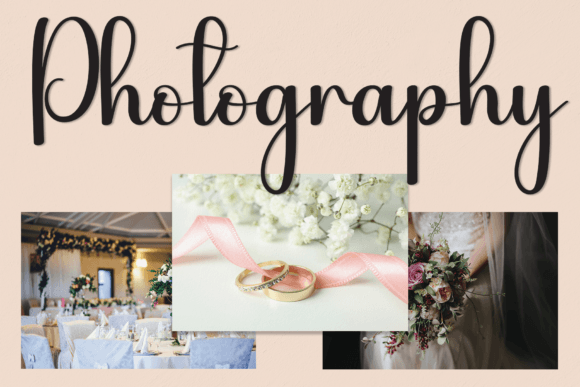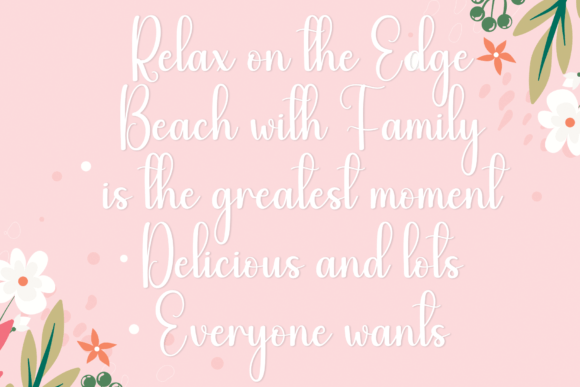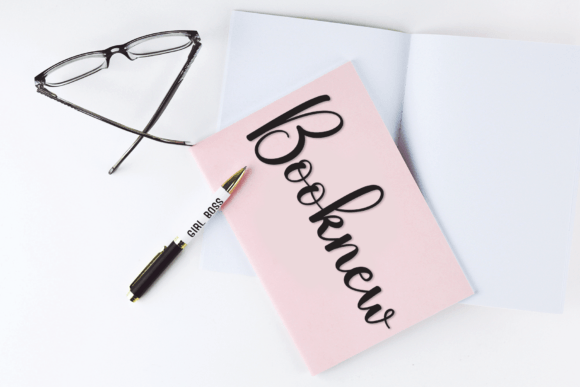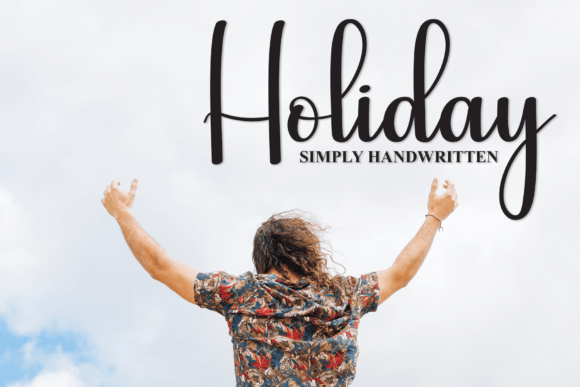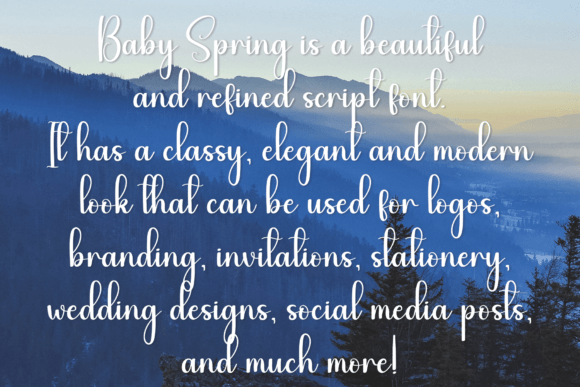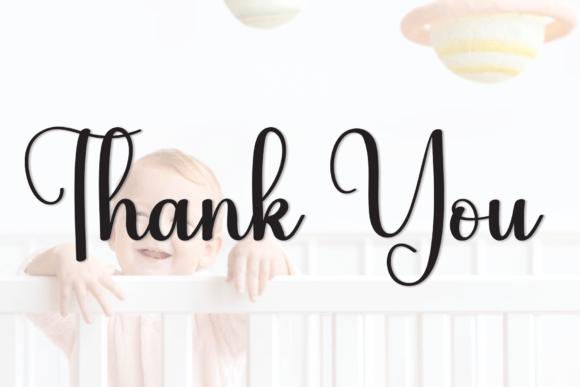
The Sweet Charm of Baby Spring Font: A Designer’s Delight
I’ll never forget the time I was working on a project for a client who wanted a custom wedding invitation design. I had the perfect concept in mind, but I was struggling to find the right font to bring it all together. That’s when I stumbled upon Baby Spring Font, and it was love at first sight! 💕 This sweet and cursive handwritten font has since become a staple in my design toolkit, and I’m excited to share its charm with you.
An Honest Review of Baby Spring Font
So, what makes Baby Spring Font so special? Let’s dive into the good stuff! 😊
- ✨ Sweet and feminine: Baby Spring Font has a gentle, whimsical feel that’s perfect for projects that require a touch of elegance and romance.
- ✅ Highly versatile: This font can be used for a wide range of design ideas, from wedding invitations and baby shower decor to branding and packaging.
- 💫 Easy to read: Despite its cursive nature, Baby Spring Font is surprisingly legible, making it suitable for both headings and body text.
Now, no font is perfect, and Baby Spring Font has a few minor quirks to be aware of:
- 🤔 Limited character set: While Baby Spring Font has a lovely range of characters, it may not be the best choice for projects that require a wide range of special characters or glyphs.
- ⚠️ Not suitable for body text: While the font is legible, it’s still a cursive script, and using it for long blocks of body text may not be the most practical choice.
The Story Behind Baby Spring Font
While the true origins of Baby Spring Font are unknown, it’s easy to imagine a designer sitting in a cozy coffee shop, surrounded by flowers and springtime inspiration, and creating this lovely font. Perhaps the designer was on a mission to create a font that would capture the essence of new beginnings and fresh starts. Whatever the story, Baby Spring Font is a delightful addition to the world of typography.